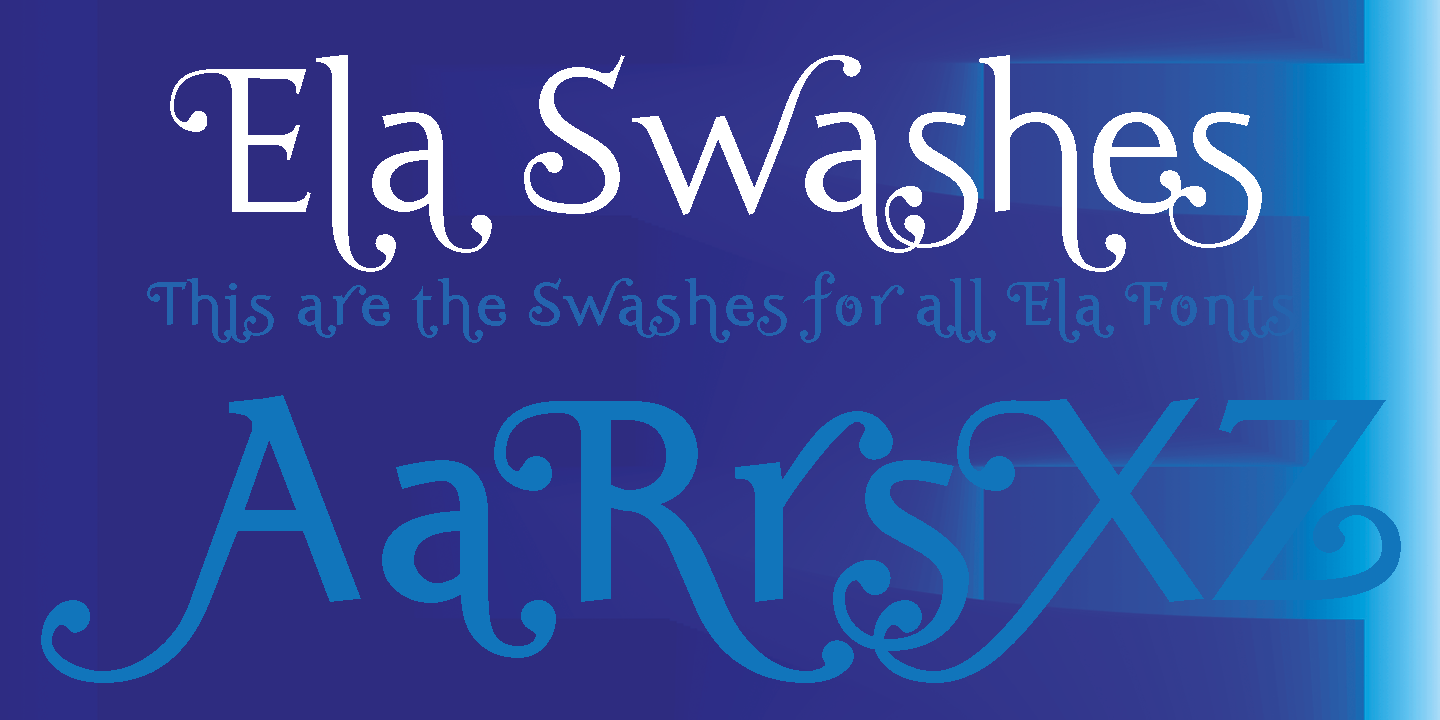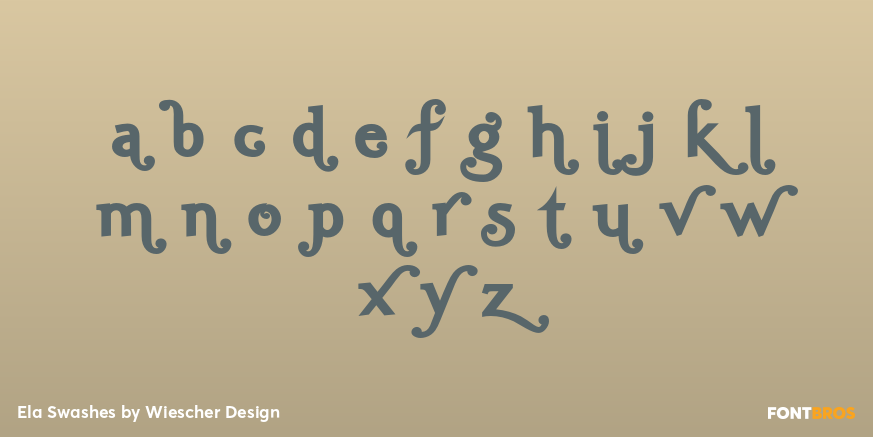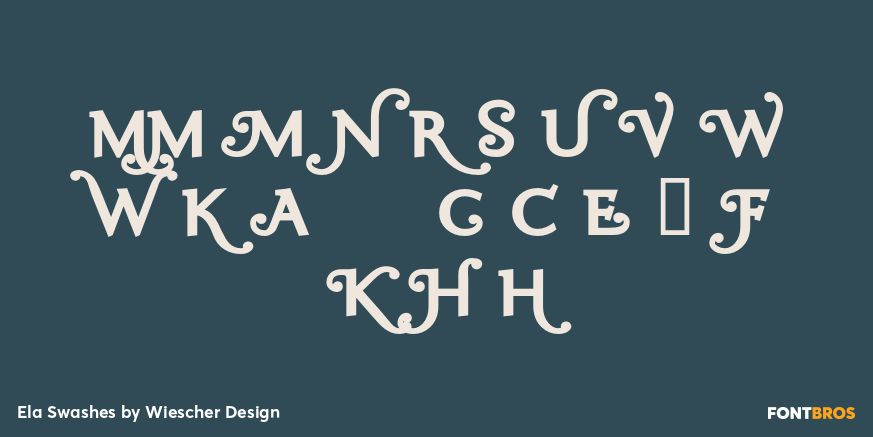
Ela Swashes
Font Family by Wiescher Design
Ela Swashes are not meant to and cannot be used as a standalone typeface.
Swashes are a set of many different embellished letters to be used together with Ela Demiserif fonts of corresponding weights.